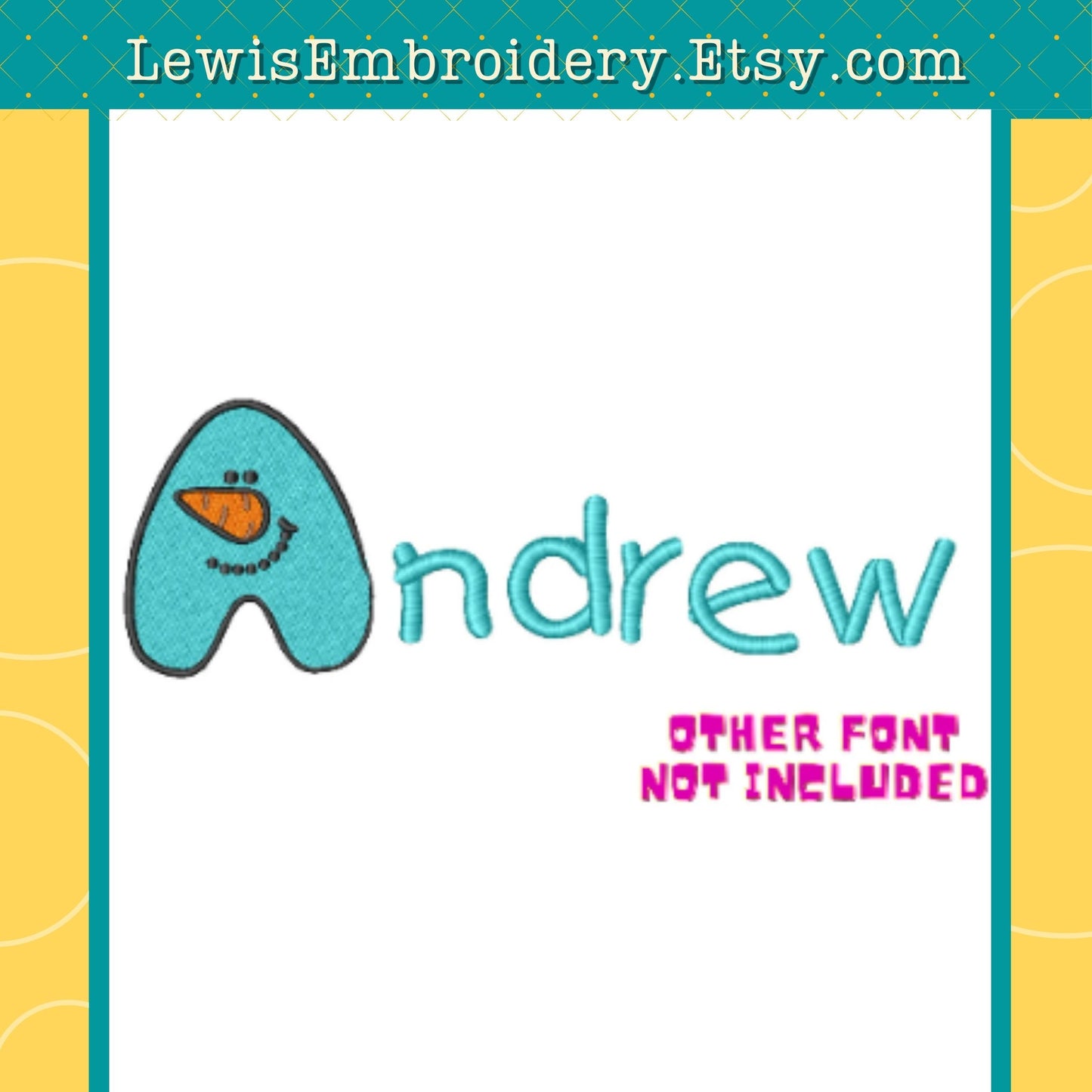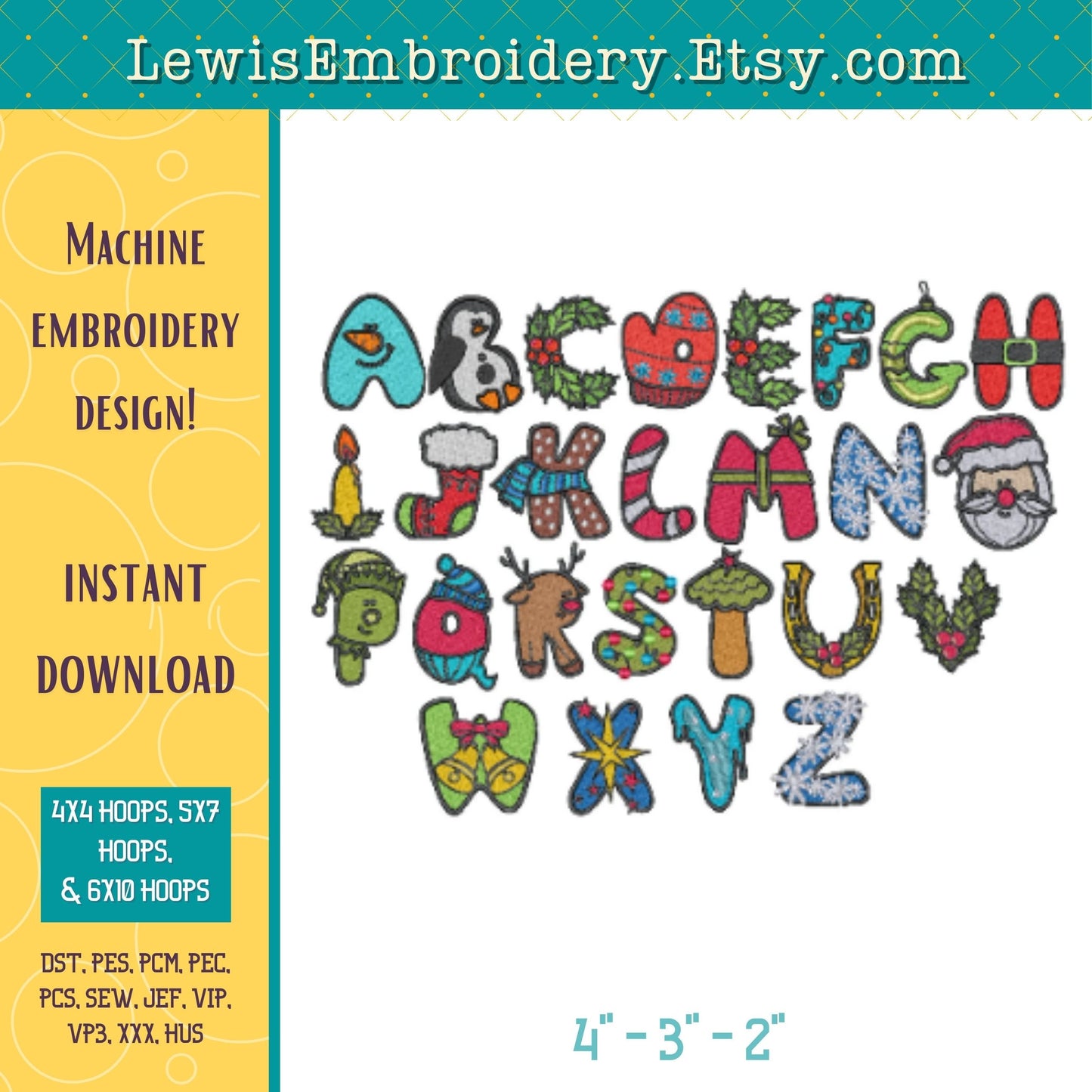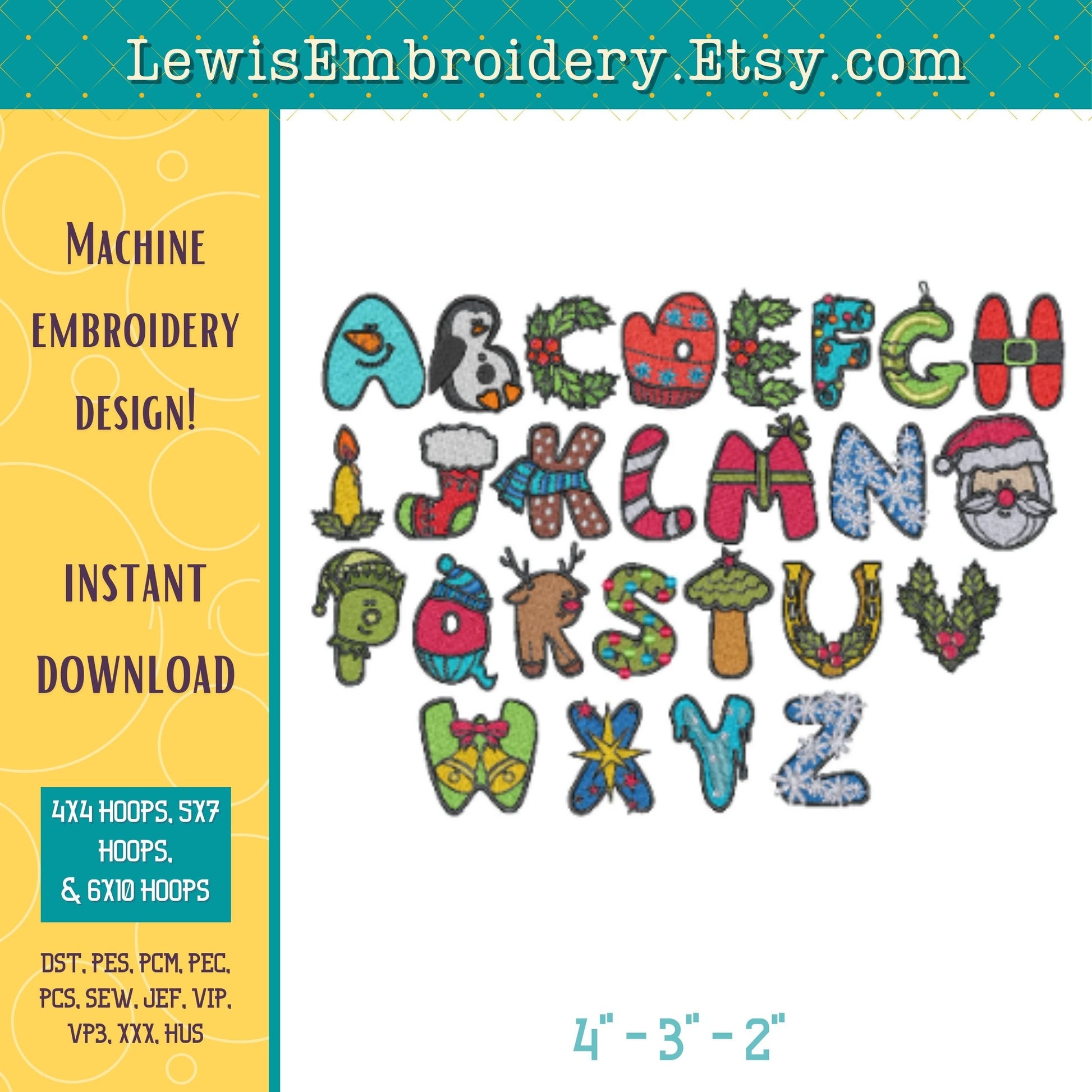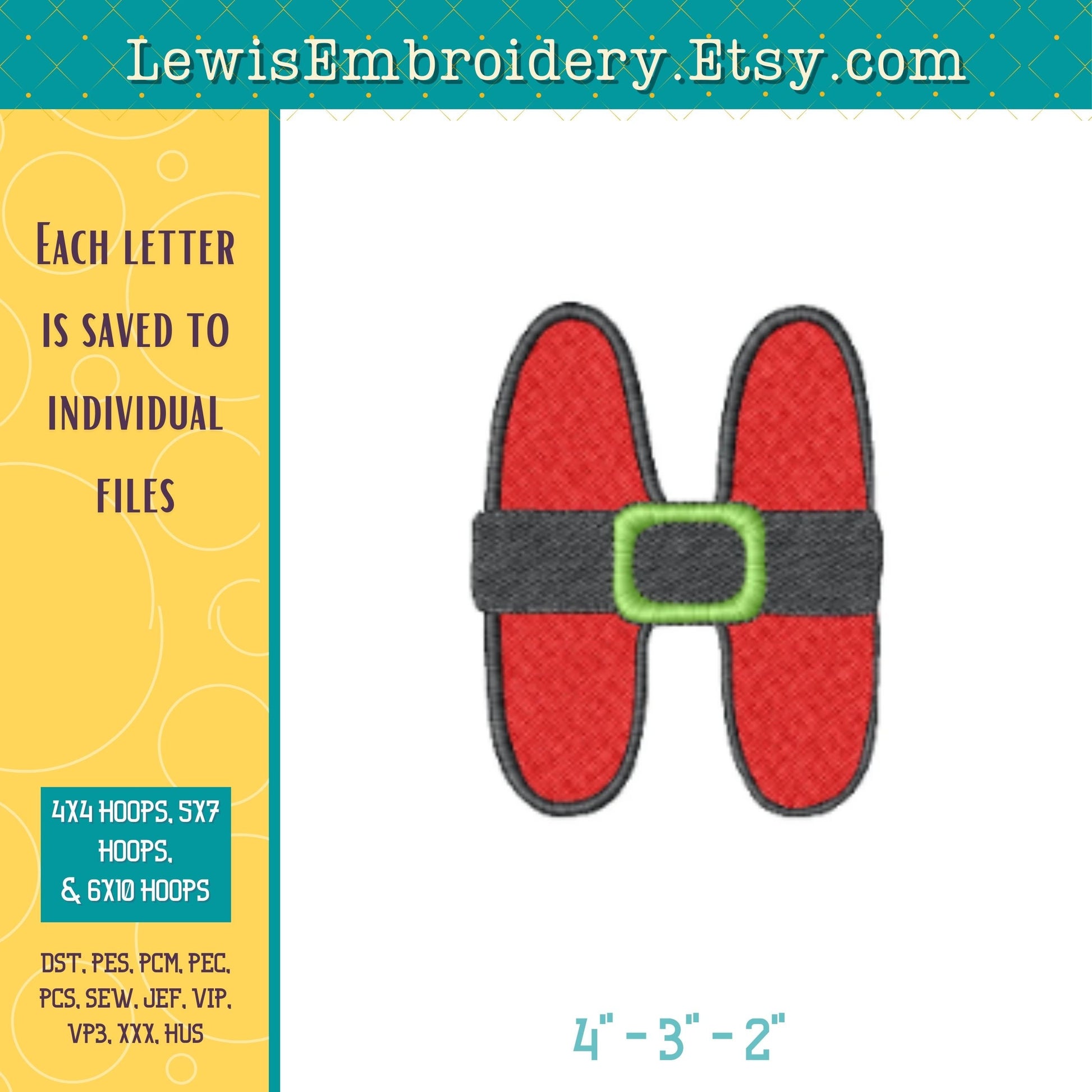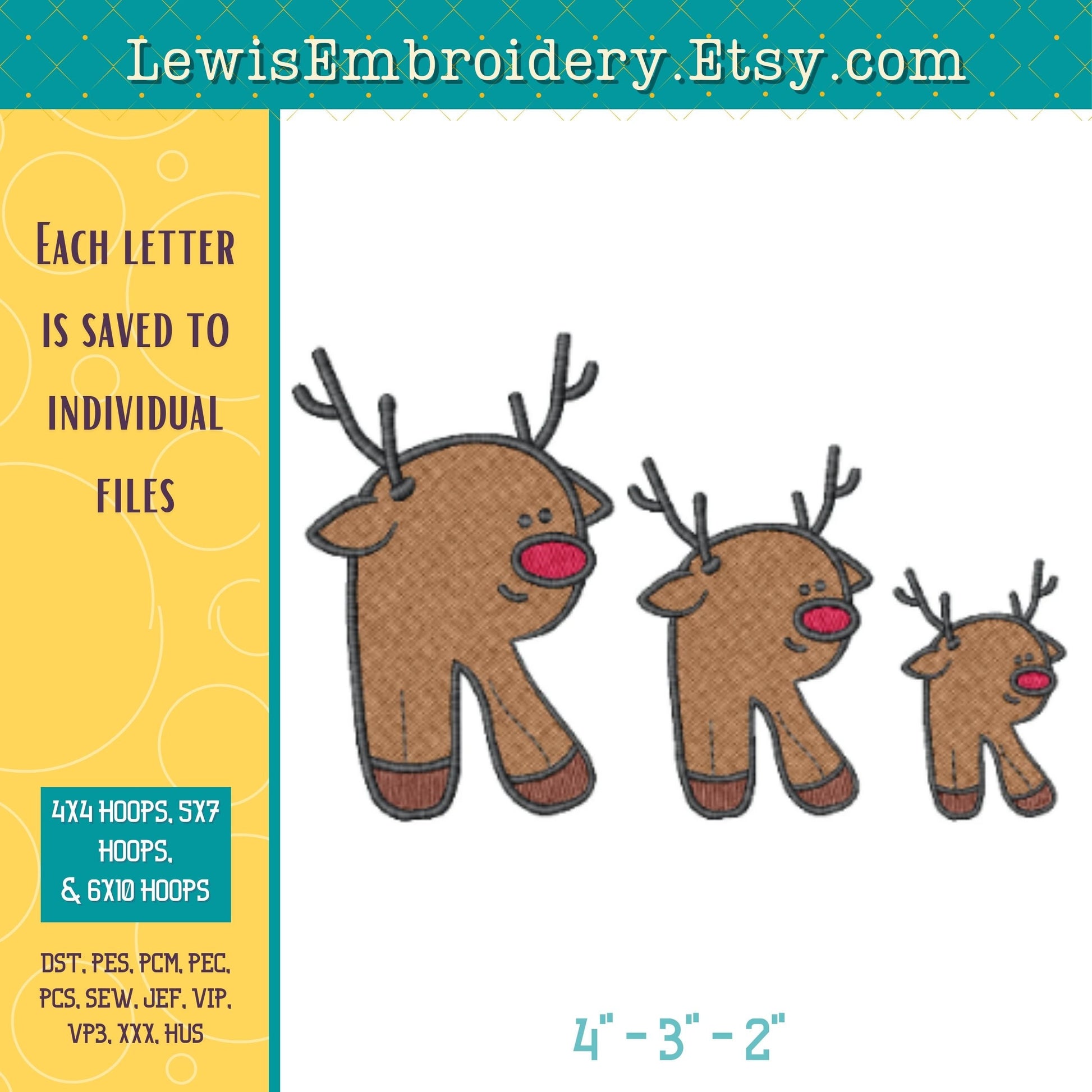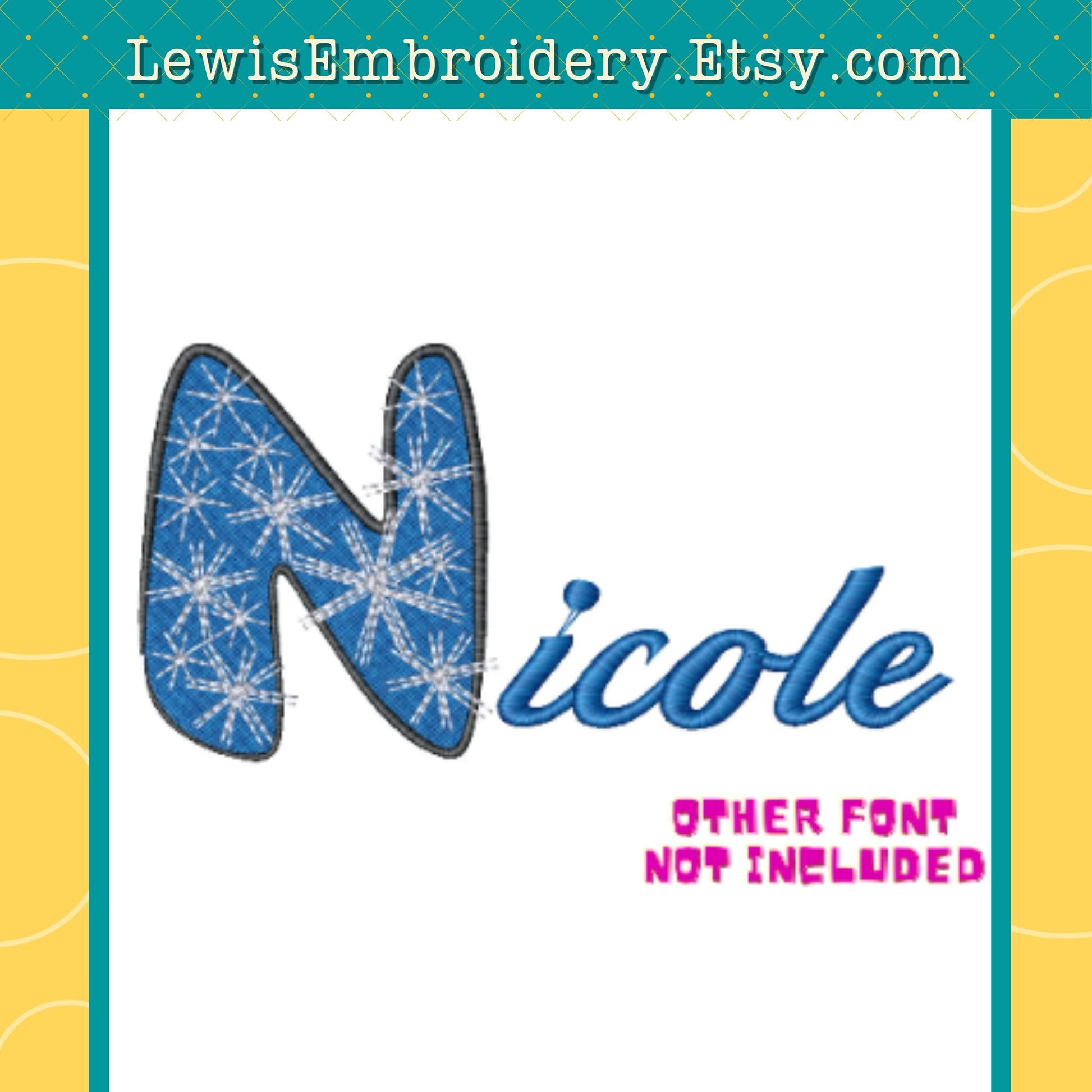
Christmas Letters, Machine Embroidery Font – (Digital Download)
Christmas Letter Font Embroidery Design - Christmas Alphabet Embroidery - Christmas Embroidery Pattern - Stocking Embroidery Design
This adorable design will add a nice touch to any of your projects!